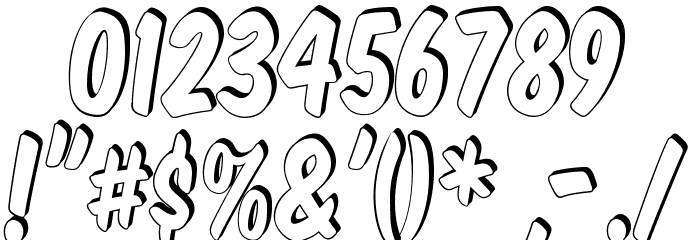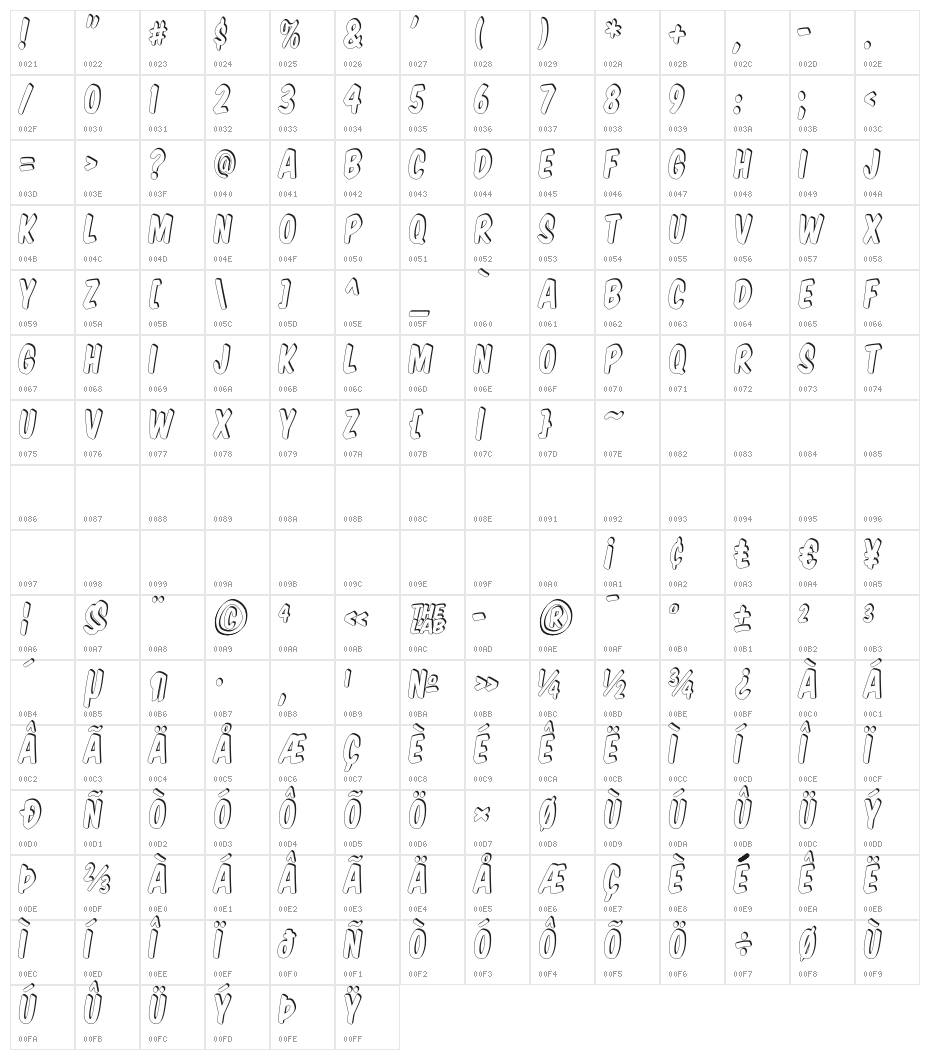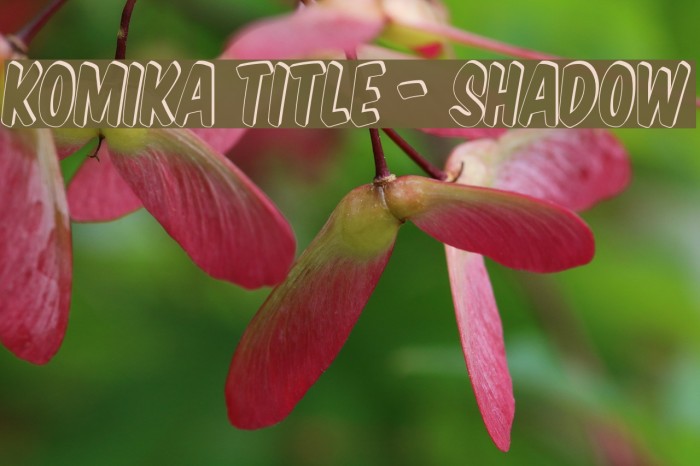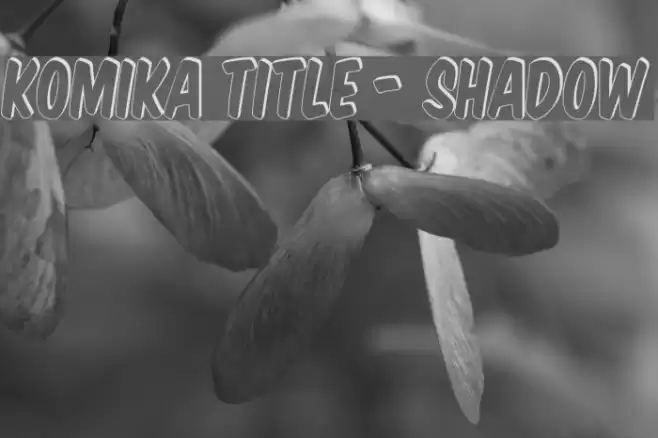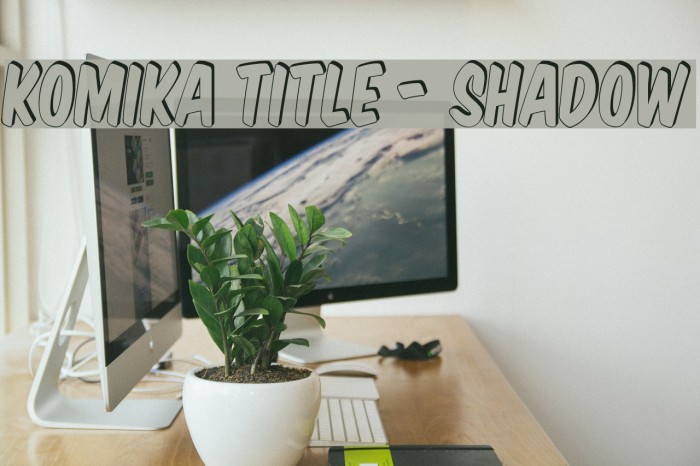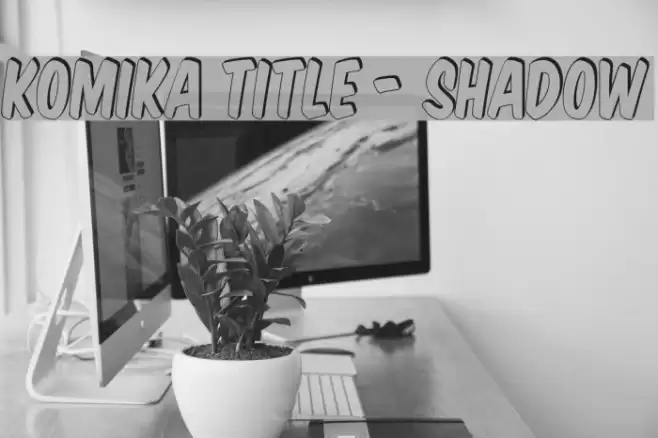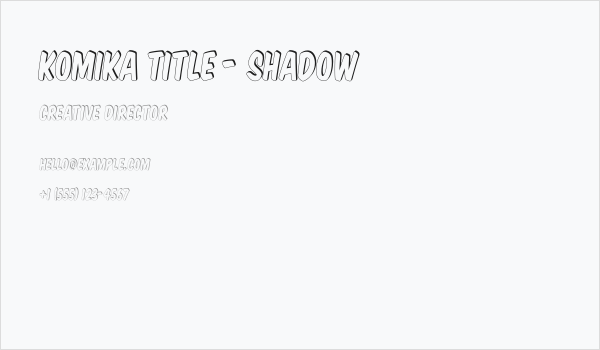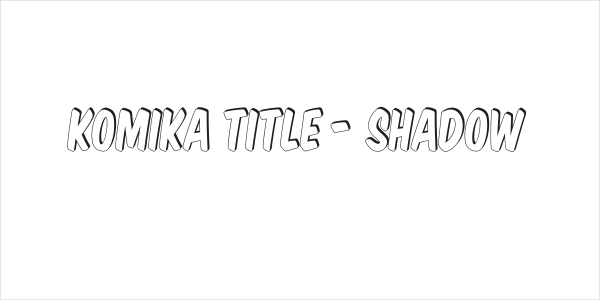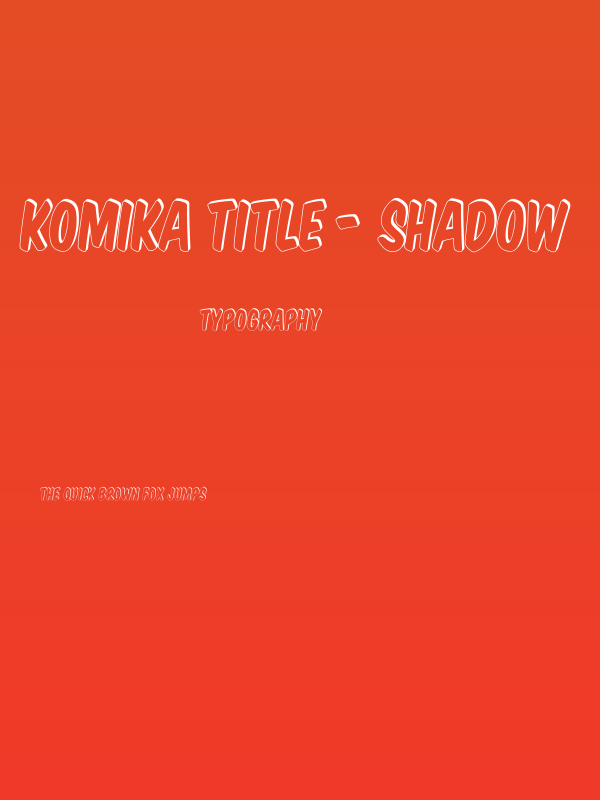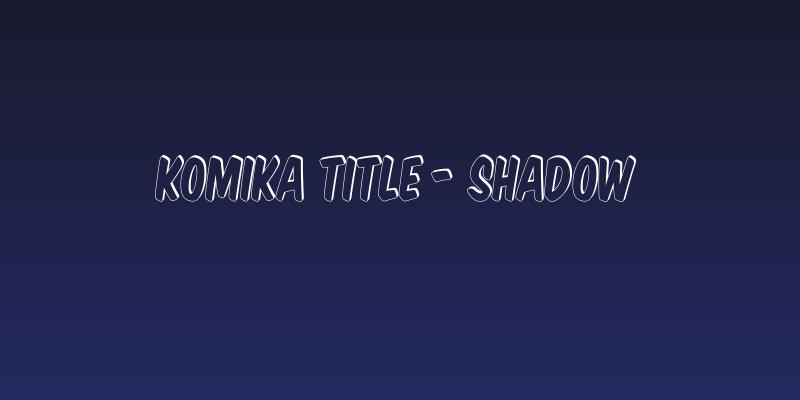
Komika Title - Shadow Font
Komika Title - Shadow Description
This font features a bold, playful style with a distinct shadow effect that gives it a three-dimensional appearance. The characters are rounded and slightly condensed, with a consistent stroke width that adds to its boldness. The shadow effect is offset to the right and down, creating a sense of depth and movement. This font is highly legible and eye-catching, making it suitable for various creative applications. The uppercase letters are prominent, while the numbers and special characters maintain the same playful aesthetic, ensuring a cohesive look across all text elements.
| Overall Style | Playful, Dynamic |
| Proposed Projects | Ideal for comic books, children's books, playful branding, posters, and any project requiring a fun and dynamic typeface. |